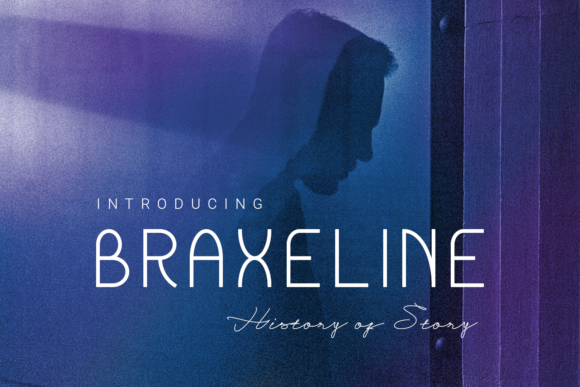
The Perfect Match for Your Design Vision
Remember that moment when you’re working on a project and everything just clicks into place? The colors, the layout, the typography – it all comes together in perfect harmony. For designers, this is the holy grail, and the right font can make all the difference. This is where Braxeline Font comes in – a light and charming sans serif font that adds a sleek, smart feel to any design idea.
With its clean lines and modern aesthetic, Braxeline Font is the perfect choice for designers looking to elevate their work. Whether you’re creating a brand identity, designing a website, or working on a marketing campaign, this versatile font will help you achieve your vision. By incorporating Braxeline Font into your design, you’ll be able to convey a sense of sophistication and style that’s sure to leave a lasting impression.
Braxeline Font Key Features
- Font Family: Braxeline Font is a sans-serif font family designed for modern and minimalist designs.
- Resolution: Designed for high-resolution displays, suitable for use in digital media, print materials, and signage.
- Unique Characteristics: Features a clean and geometric design, with a unique blend of modernity and sophistication, making it ideal for corporate and branding materials.
Braxeline Font Review
At first glance, Braxeline Font has a certain charm to it. ✨ The rounded edges and subtle nuances in letterforms give it a friendly and approachable feel. It’s clear that the designer aimed to create a font that’s both aesthetically pleasing and easy to read. ✨ In many ways, they’ve succeeded.
One of the strengths of Braxeline Font is its versatility. ✨ It can be used for a variety of applications, from body text to headlines, and even for logotypes. The font’s weight range is also noteworthy, allowing designers to choose the perfect variant for their project.
- ⚠️ Braxeline Font may not be the best choice for titles or emphasis, as the rounded edges can make it appear less impactful. In these cases, a more dramatic font might be a better option.
- ⚠️ Some letterforms, such as the ‘a’ and ‘e’, can appear a bit too rounded, which may cause readability issues at smaller font sizes.
Overall, Braxeline Font is a solid choice for designers looking for a friendly and approachable font. While it may not excel in every situation, it’s a reliable option that can add a touch of warmth to a wide range of projects.
Common Use Cases for Braxeline Font
Braxeline Font is suitable for a variety of design projects, including:
- Brand logos and identity design.
- Business cards and letterheads.